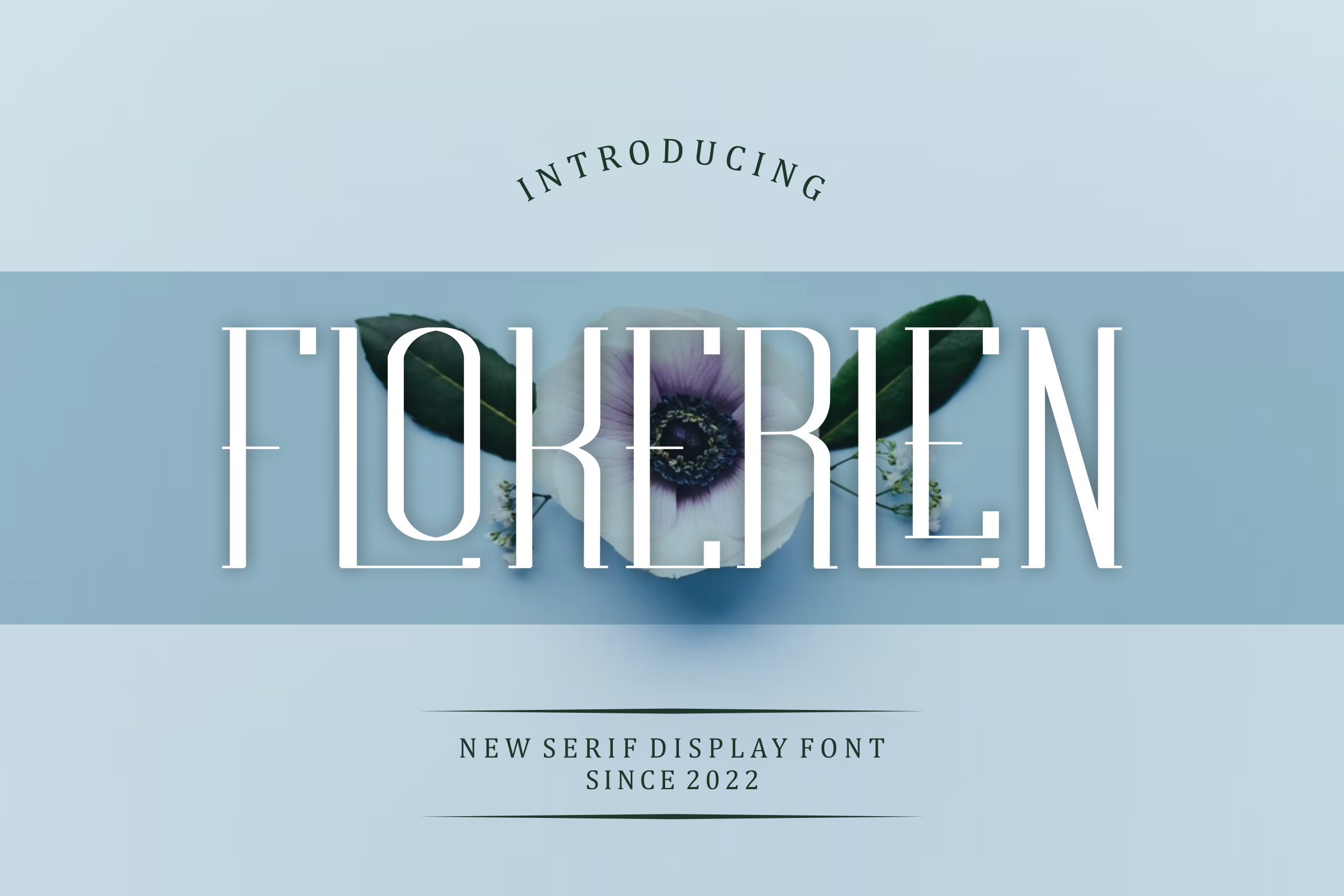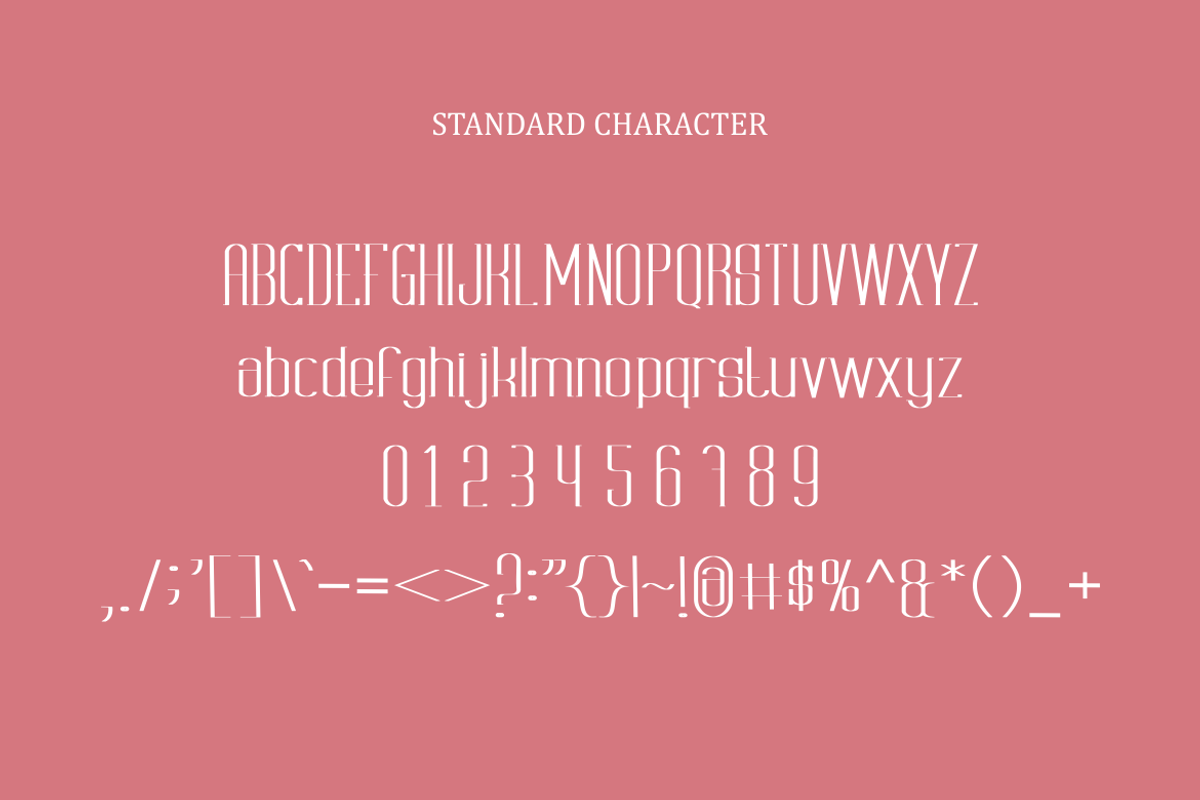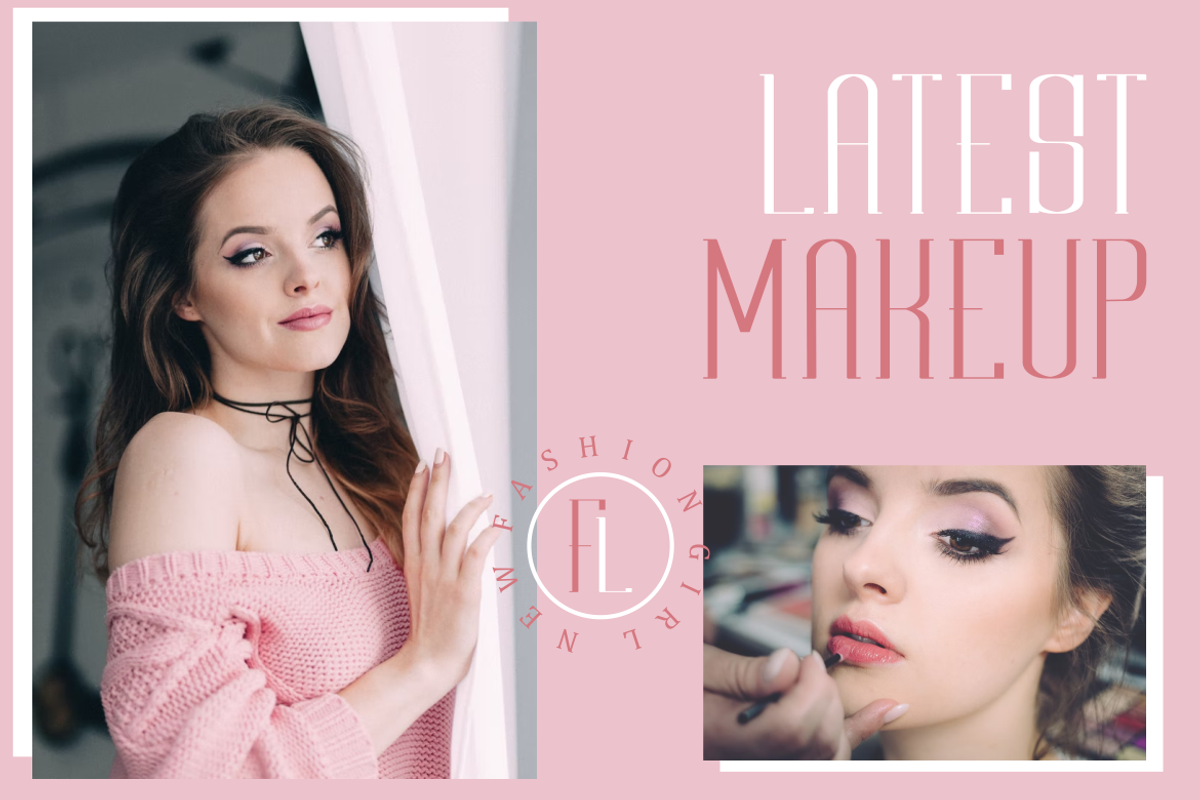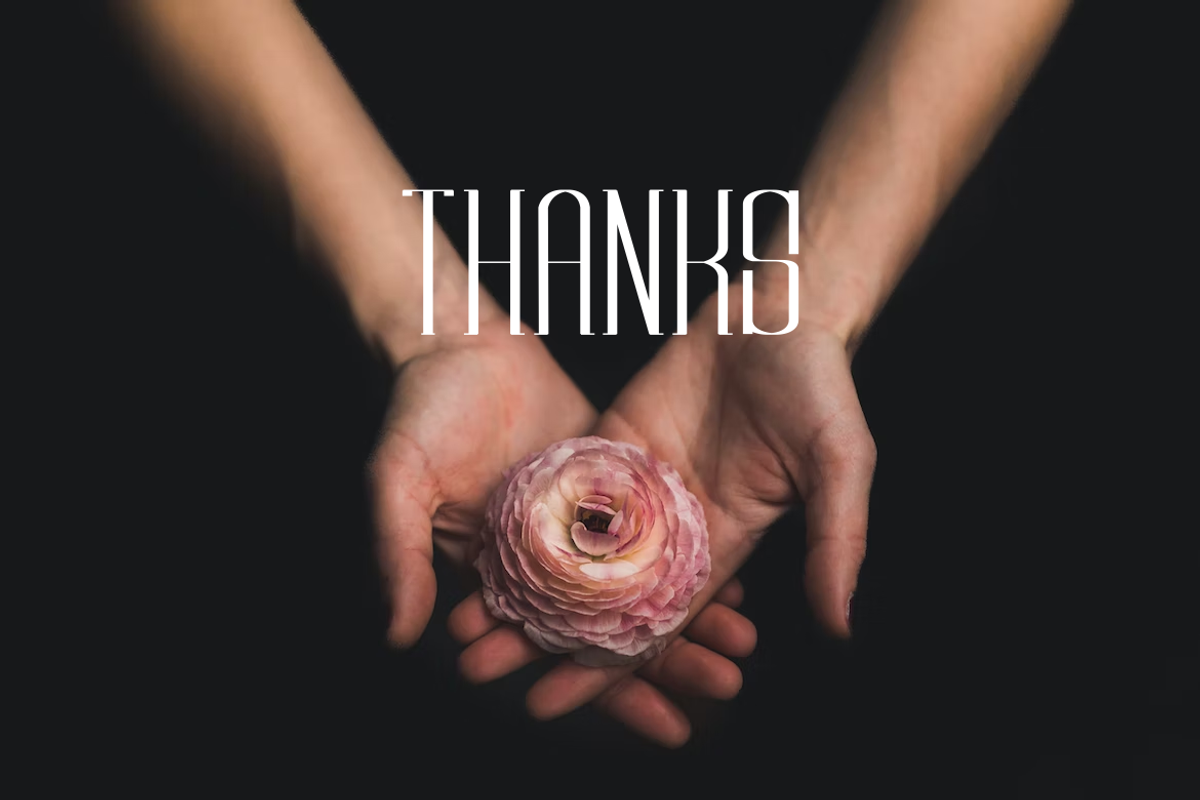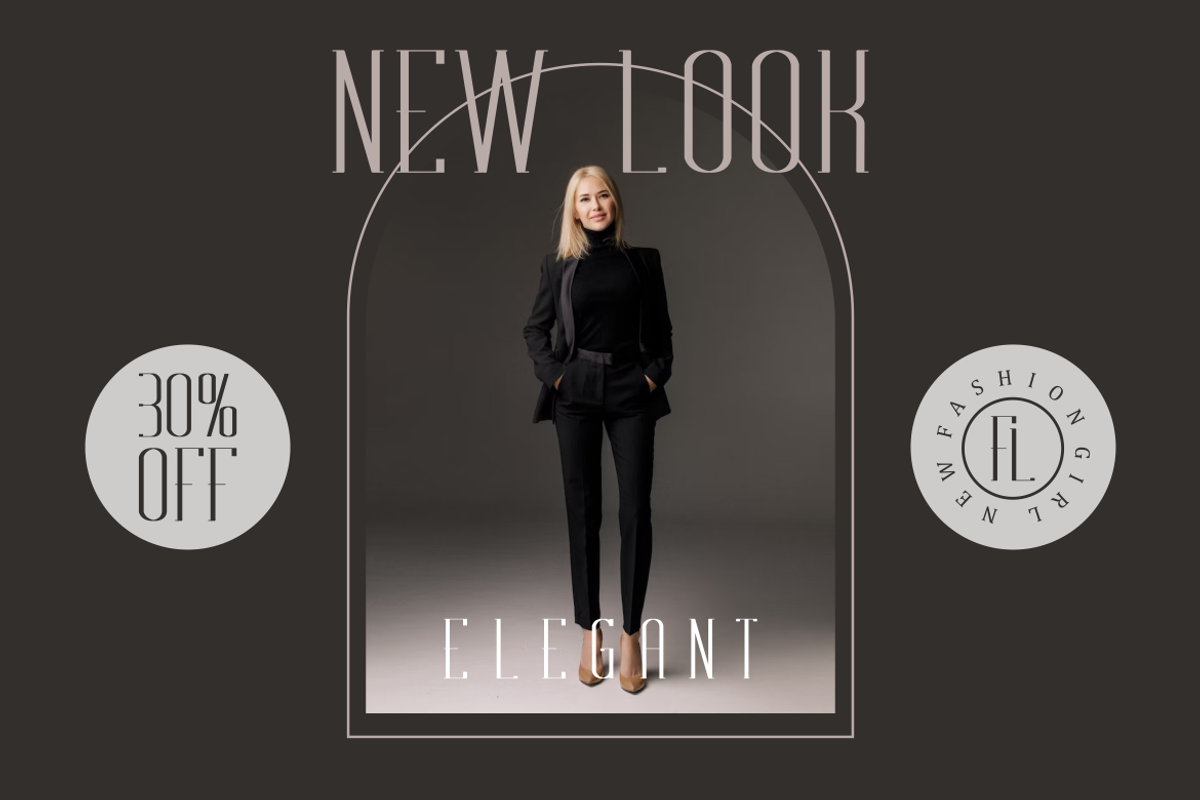
Flokerlen Font
Introducing our new product Flokerlen Font - Modern Font
Flokerlen Font - Modern Font is a bold and authentic display font. The font is suitable for any branding project like logo, esport, and many more. outstanding in a wide range of contexts.